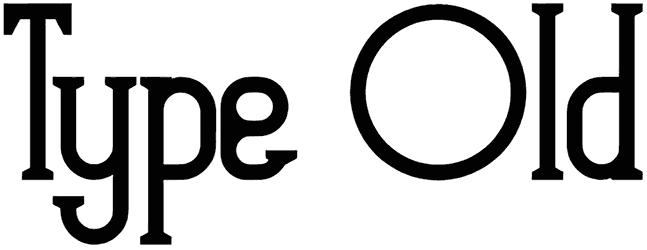
Type Old Font
Here we come again to introduce a magical retro font, such as Type Old, to you that comes in three distinctive styles, and give you the opportunity to add a bit of variety to your artwork.
It can be included in a wide set of creative ideas like movie posters, video game brochures, social media posts, and product packaging. Aside from the lack of numbers, this masterpiece can bring a vibe of vintage, classic, or momentum to your artwork.